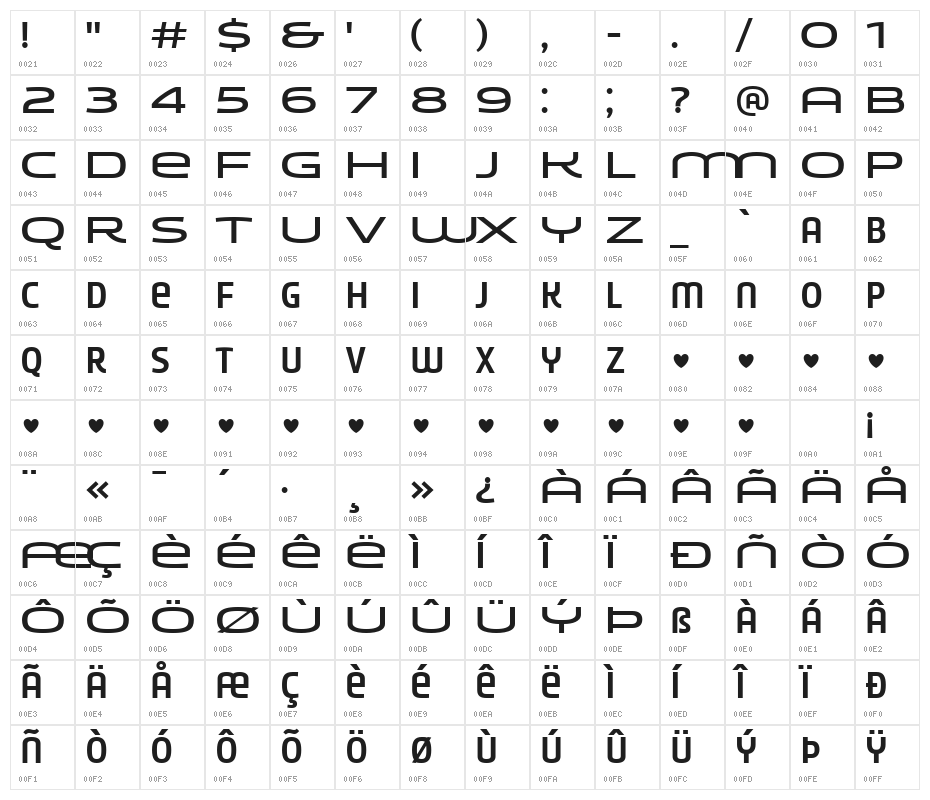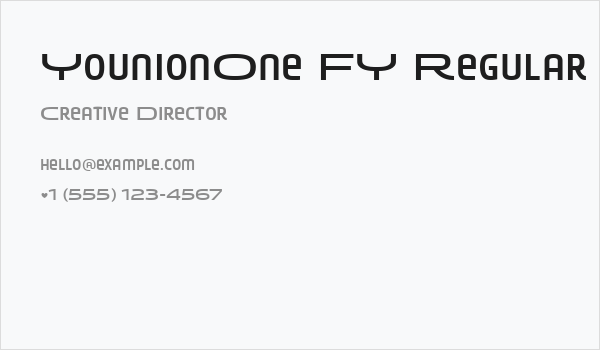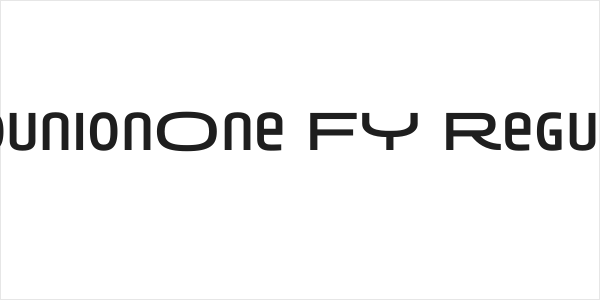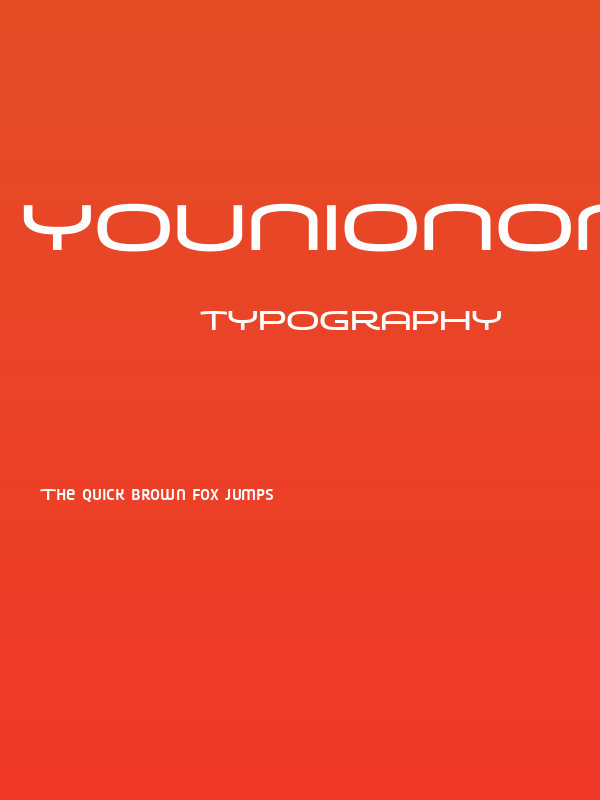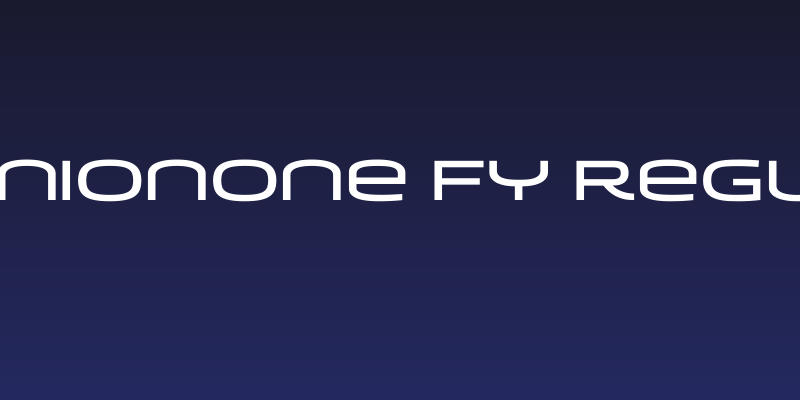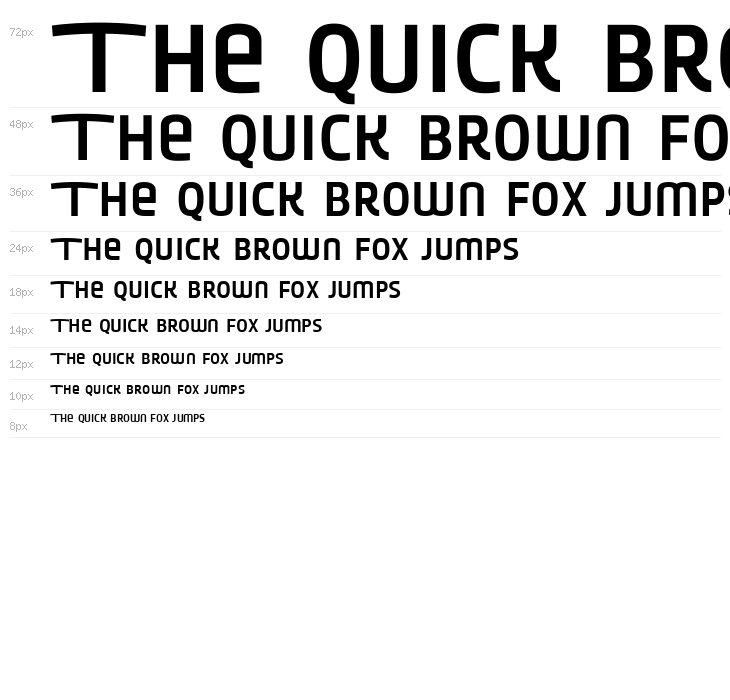
YounionOne FY Regular Font
YounionOne FY Regular Description
This font features a modern and sleek design with a geometric structure. The uppercase letters are bold and assertive, while the lowercase letters maintain a consistent style that complements the uppercase. The numerals are clear and easy to read, making them suitable for various applications. Special characters are designed with a contemporary flair, adding to the font's overall modern aesthetic. The uniformity in stroke width across characters gives it a cohesive look, while the rounded edges provide a softer, approachable feel.
| Use Case | Headlines, Logos, Digital Media |
| Proposed Projects | Ideal for branding, advertising, and digital media projects that require a modern and clean look. |